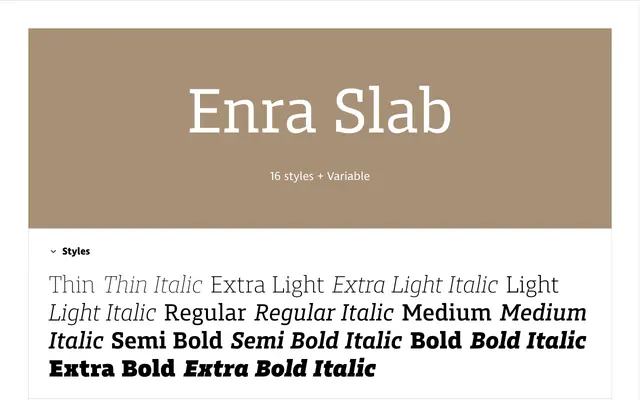
Enra Slab
A utilitarian slab serif from the Enra type system, sharing a common skeleton with its sans and semi siblings across eight weights plus a variable axis.
Part of a three-member family alongside Enra Sans and Enra Semi, this slab variant adds sturdy serifs that reinforce the stability of letterforms designed for legibility across print and screen. A large x-height, open apertures and narrow proportions allow it to perform well at small sizes without feeling cramped. The character set is extensive, covering Vietnamese and a wide range of Latin languages, with small caps, multiple numeral sets, full superscript and subscript alphabets, and circled or cartridge figure variants via OpenType stylistic sets.
Enra Slab is a slab serif with humanist proportions, described as blending a technical structure with human warmth. The sturdy serifs add stability to letterforms drawn with a hybrid character rooted in 1990s utilitarian design.